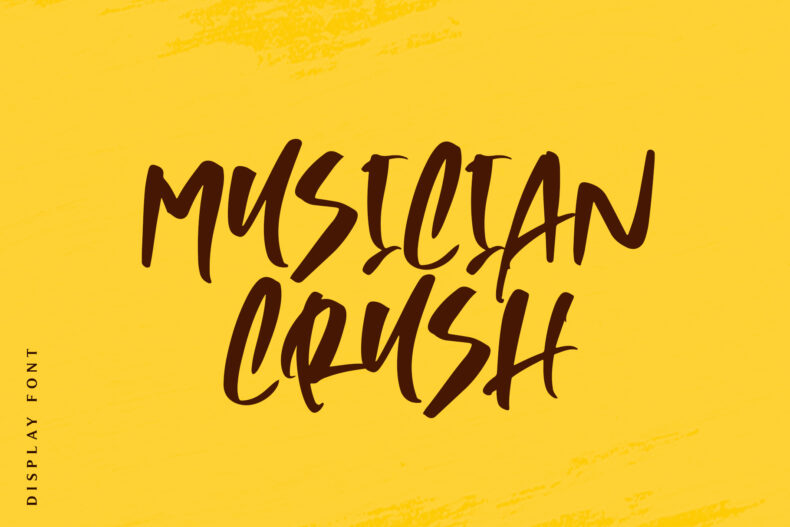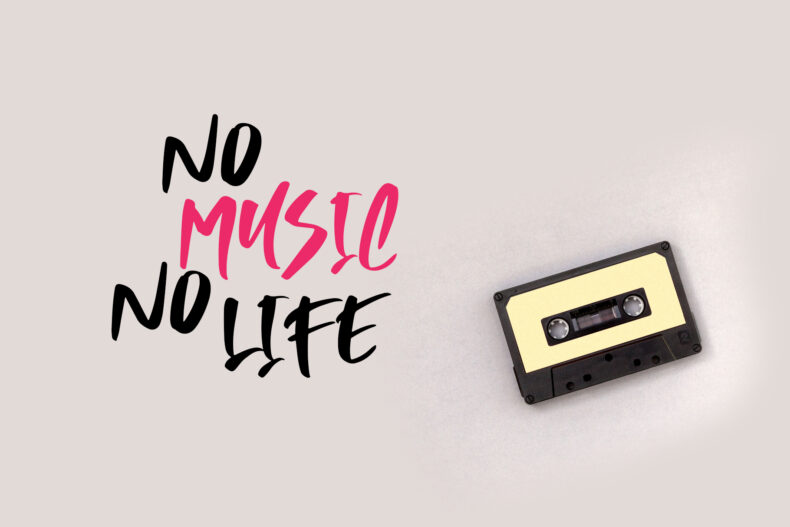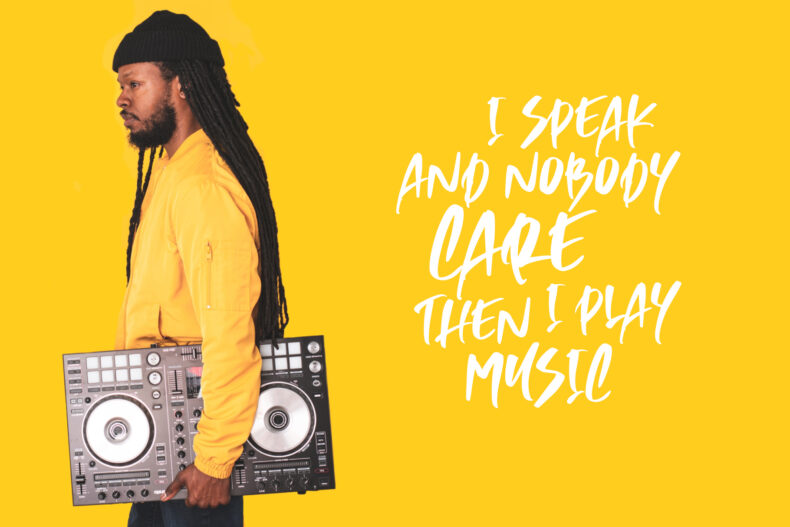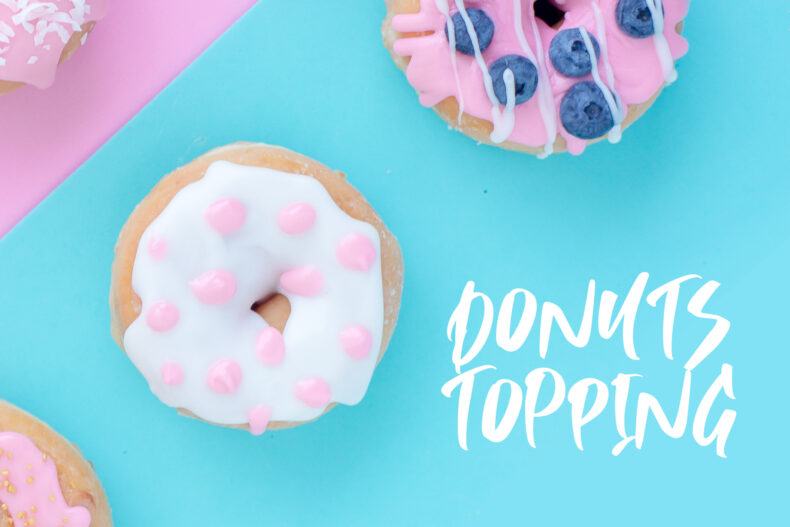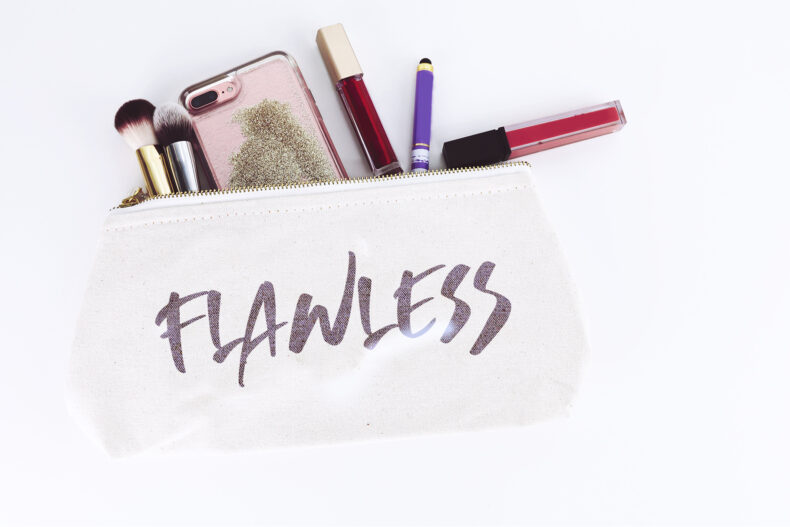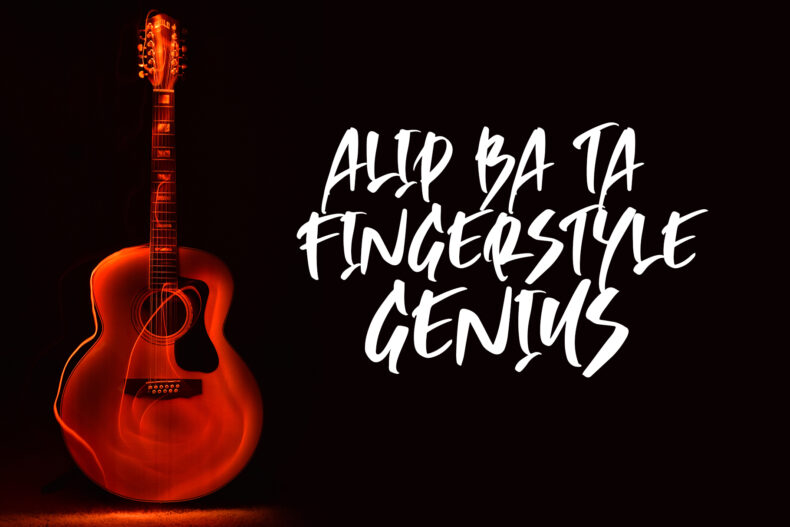
Musician Crush is an all-caps marker-style display font with an urban character. Ligatures add variation to its handwritten lettering, and OTF and TTF files are included.
Try Musician Crush in a music-poster title, streetwear graphic, or compact brand statement. Its display character is suited to short wording where the letters can contribute to the visual energy of the design.
The font includes ligatures, multilingual characters, and PUA-encoded glyphs. Explore the available letter combinations in your design application and check the final phrase at the size where it will be used.